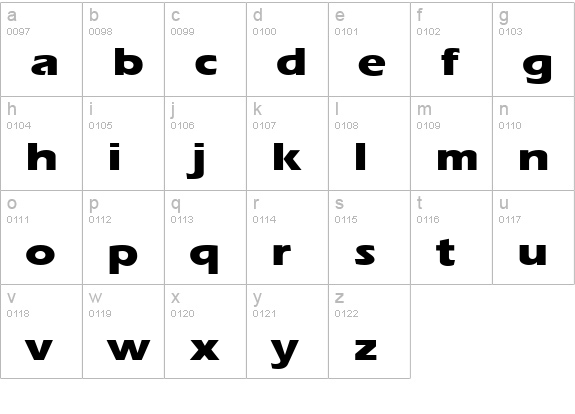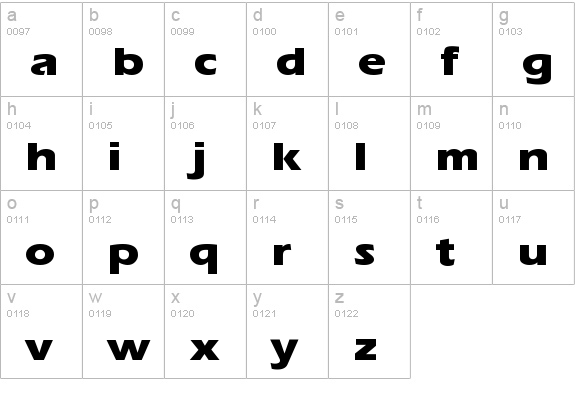
ErgoeExtraboldExpanded Regular Font Details
ErgoeExtraboldExpanded Regular is the standard, neutral variant in the ErgoeExtraboldExpanded typeface family \xE2\x80\x94 well suited to general body text, paragraphs, and standard typographic work.
ErgoeExtraboldExpanded Regular font is a striking and modern typeface that exudes confidence and boldness. Its clean lines and expanded design make it perfect for headlines, posters, and branding projects that require a strong visual impact. This versatile font is free to download at FontsMarket.com, allowing designers and creatives to access this powerful tool for their projects without any cost. With its commanding presence and readability, ErgoeExtraboldExpanded Regular font is sure to make a statement in any design.